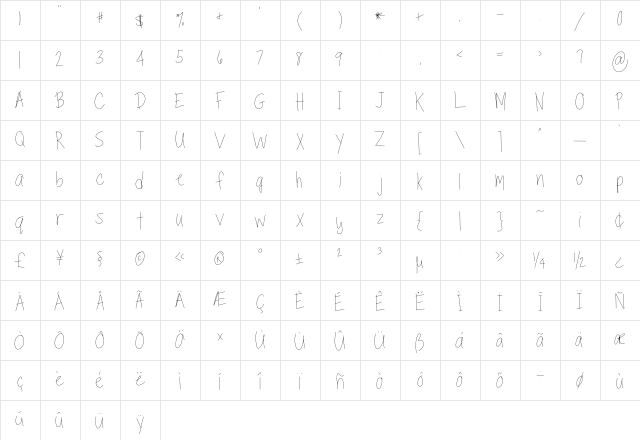
TippyToes Skinny Medium
Design Context for TippyToes Skinny Typeface
TippyToes Skinny takes a measured approach to typography — its balanced proportions and neutral character make it a reliable workhorse for both digital and print work.